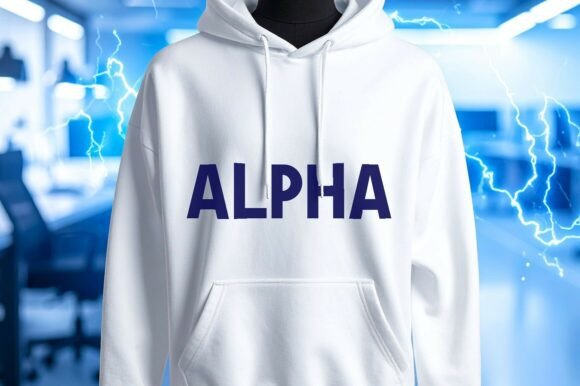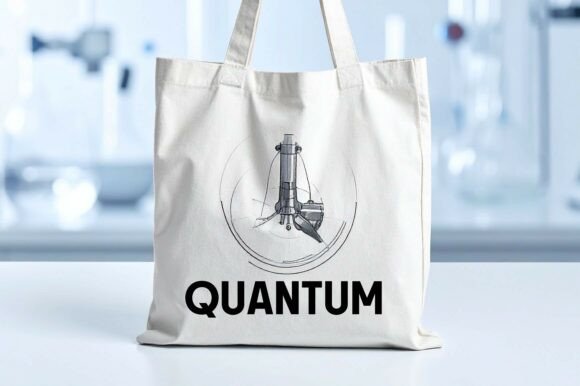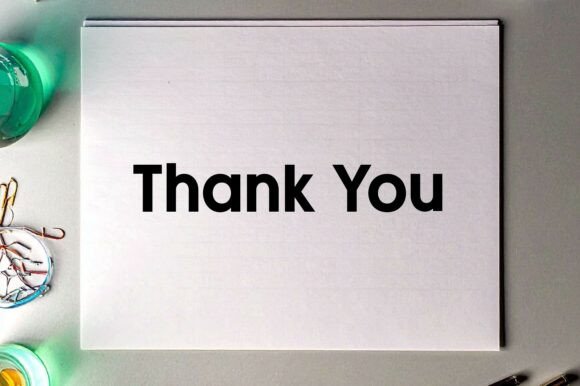
Introducing Atomic Md Font: The Epitome of Modern Sans-Serif Elegance
In the realm of typography, the quest for the perfect font is a never-ending journey. For designers and crafters seeking a modern, clean, and highly legible sans-serif font that embodies precision, technology, and innovation, look no further than Atomic Md. This versatile font is meticulously crafted to offer a balanced aesthetic that is both friendly and authoritative, making it an excellent choice for a wide range of design applications.
Design Characteristics of Atomic Md Font
Atomic Md’s design is distinguished by its balanced letterforms, characterized by perfectly rounded curves and crisp, straight lines. This harmonious blend of curves and lines imparts a sense of approachability while maintaining an air of professionalism. A key feature that sets Atomic Md apart is its consistent stroke width, which contributes to its clean and cohesive look. Additionally, the font’s open counters enhance readability, even in intricate layouts or at smaller font sizes, ensuring that your message is conveyed clearly and effectively.
Readability and Versatility
One of the standout qualities of Atomic Md is its exceptional readability. This is achieved through its thoughtfully designed letterforms that are easy on the eyes, making it perfect for body text, headings, and any other application where legibility is paramount. The font’s slightly geometric feel hints at scientific accuracy and contemporary design, making it an ideal choice for projects that require a modern edge. Whether you’re working on a website, a mobile app, or a print project, Atomic Md’s versatility ensures it will adapt seamlessly to your design needs.
Comprehensive Character Set
Atomic Md is not just a font; it’s a comprehensive typographic solution. It includes a full set of uppercase and lowercase characters, numerals, and a wide range of punctuation and symbols. This extensive character set ensures that you have everything you need to create professional-looking text, from the simplest note to complex, multi-language content. Every character is designed with the same attention to detail as the rest of the font, maintaining the clear and professional aesthetic that Atomic Md is known for.
Applications of Atomic Md Font
The applications of Atomic Md are vast and varied. For digital designers, it can be used in website design, mobile apps, and digital marketing materials to convey a sense of modernity and innovation. Graphic designers can utilize Atomic Md in branding, packaging, and print materials to achieve a clean and professional look. Additionally, its readability makes it suitable for use in signage, presentations, and any other project where clear communication is key.
Why Choose Atomic Md?
Choosing Atomic Md for your design projects offers numerous benefits. Its modern and clean aesthetic ensures your work looks contemporary and engaging. The font’s high legibility means your message will be communicated effectively, whether in print or digital formats. Furthermore, Atomic Md’s versatility and wide compatibility make it a practical choice for designers who work across multiple platforms and mediums.
Atomic Md font represents a significant advancement in sans-serif typography, offering a unique blend of modernity, cleanliness, and legibility. Its design characteristics, comprehensive character set, and compatibility with professional design tools make it an invaluable asset for designers and crafters seeking to elevate their work. Whether you’re creating digital content, print materials, or anything in between, Atomic Md is poised to become your go-to font for projects that demand a modern, dependable look.